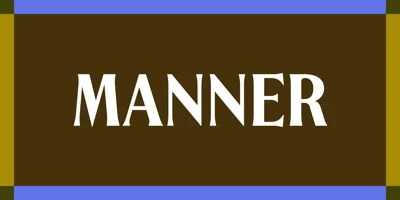
Manner Font
Manner Font is perfectly designed for elegant design applications including luxury hospitality branding, sophisticated service industry materials, premium lifestyle publications, upscale event invitations, refined dining establishments, boutique hotel communications, exclusive spa marketing, high-end customer service documentation, and cultured brand messaging. Its polished character makes it ideal for projects requiring courtesy, refinement, and professional etiquette across both traditional and contemporary design platforms.
What makes Manner Font exciting is its exceptional ability to convey sophisticated courtesy and professional grace while maintaining approachable warmth that builds immediate customer trust. This distinguished typeface features refined letterforms and elegant proportions that instantly communicate quality service and attention to detail. The font's courteous personality makes it perfect for service-oriented businesses seeking to establish premium brand positioning and demonstrate unwavering commitment to customer satisfaction and professional excellence.
Manner Font provides a comprehensive family structure including Light, Regular, Medium, Bold, and Black weights, along with corresponding Italic versions, Script variants, and Refined styles that enhance its sophisticated appeal. Each family member maintains the courteous core design while offering different levels of visual elegance and professional expression to accommodate diverse hospitality needs and complex service industry branding requirements.
Hospitality designers and service industry professionals will discover that Manner Font represents an outstanding investment in creating memorable customer experiences. This typeface demonstrates remarkable versatility in both formal communication applications and casual interaction materials, ensuring consistent brand excellence across all customer touchpoints. Whether developing materials for luxury hotels, creating menus for fine dining establishments, or designing customer service protocols, this font consistently delivers results that reflect exceptional standards.
The Manner Font showcases meticulous attention to detail in every character construction, featuring graceful proportions and refined spacing that enhance overall brand sophistication. Its comprehensive character set includes hospitality symbols, service notations, and extensive multilingual support that makes it suitable for international service applications. The font's elegant kerning ensures smooth reading experiences while maintaining its distinctive professional courtesy across all applications.
Service industry leaders particularly value Manner Font for its ability to communicate luxury and professionalism without appearing cold or distant. The typeface works exceptionally well for luxury hotels, fine dining restaurants, premium spas, exclusive clubs, concierge services, and high-end retail establishments. Its refined appeal builds customer confidence while its warm undertones create welcoming experiences that encourage loyalty and positive recommendations.
The courteous structure of Manner Font makes it particularly effective for creating comprehensive service brand systems that reflect exceptional hospitality standards. Its distinguished character creates memorable customer interactions while maintaining excellent functionality across various service contexts, from intimate guest communications to large-scale hospitality signage, ensuring consistent and gracious brand communication that demonstrates genuine care and professional excellence in every customer encounter.